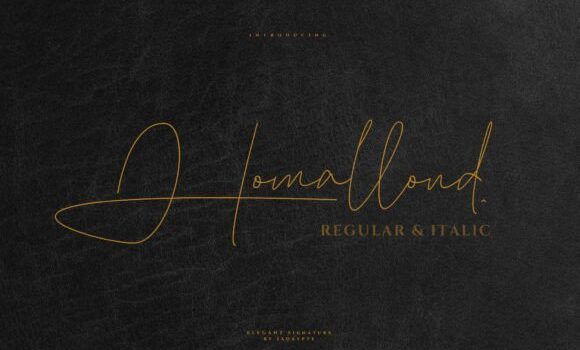
homallond
Homallond Font – Free Download Introduction to Homallond Font Homallond is a flowing handwritten font, described by an elegant touch, perfect for your favorite projects. 📸 Preview Gallery 4 images 📌 Product Name Homallond Font 👤 Author jadatype 📂 Category